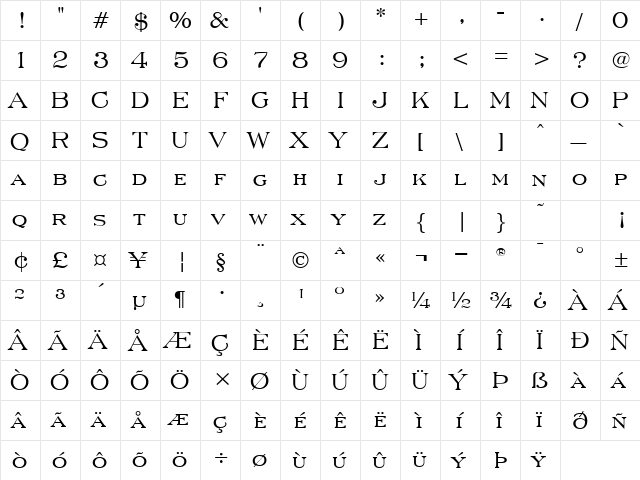
Bicycle Regular
Design Context for Bicycle Typeface
Bicycle is a composed and adaptable typeface that performs quietly and consistently across a wide range of design contexts.